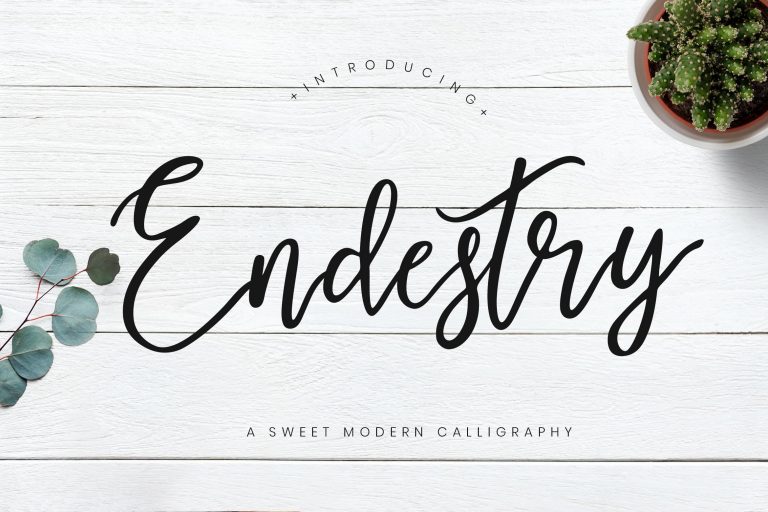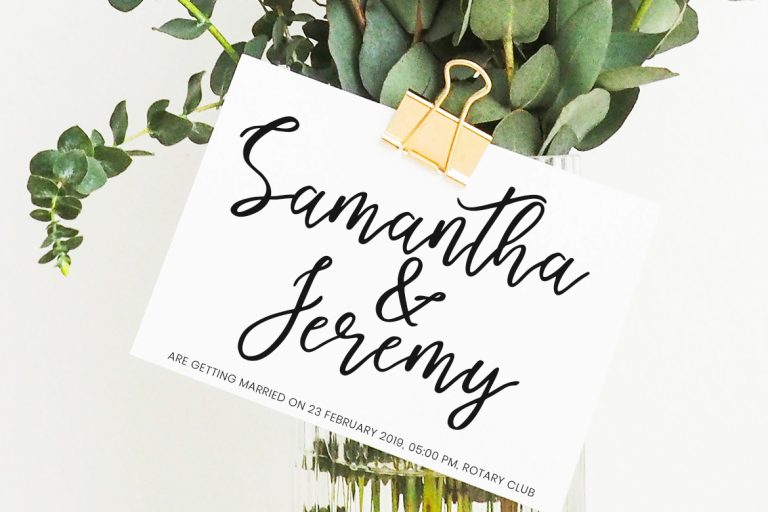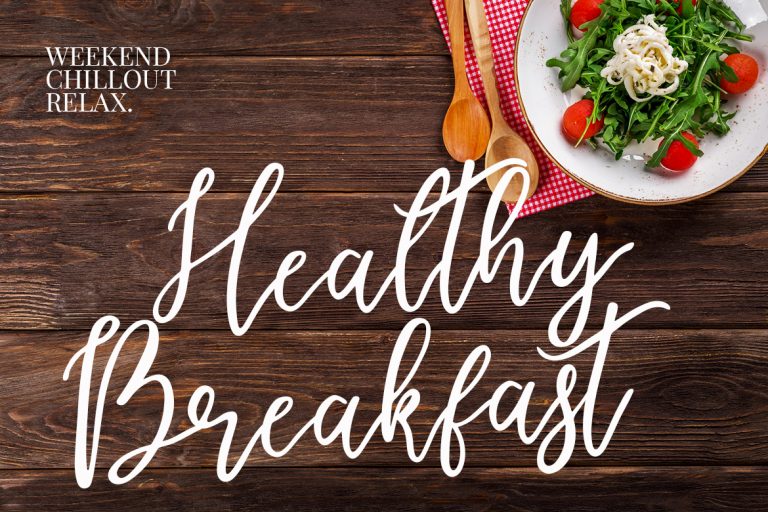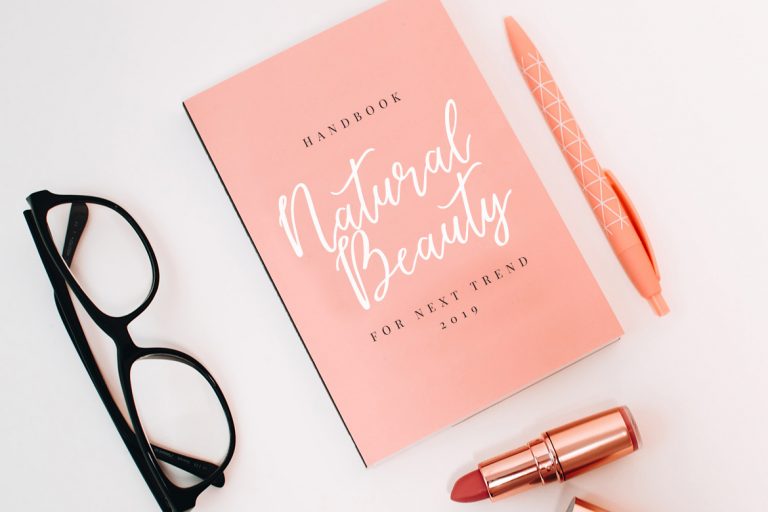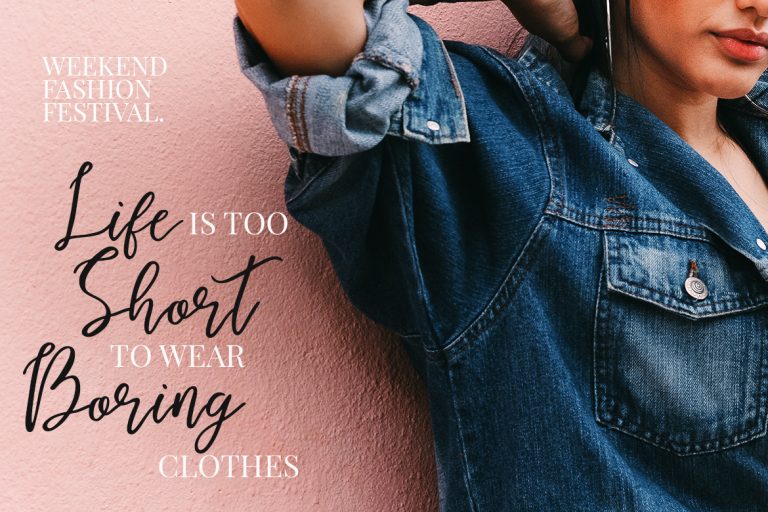
Endestry is a sweet, flirty, bouncy and smooth modern calligraphy script font with personal touch to make your latest project looks amazing.
Endestry is perfect for branding projects, logo, wedding designs, social media posts, advertisements, product packaging, product designs, label, photography, watermark, invitation, stationery and any projects that need handwriting taste.
Endestry Modern Calligraphy